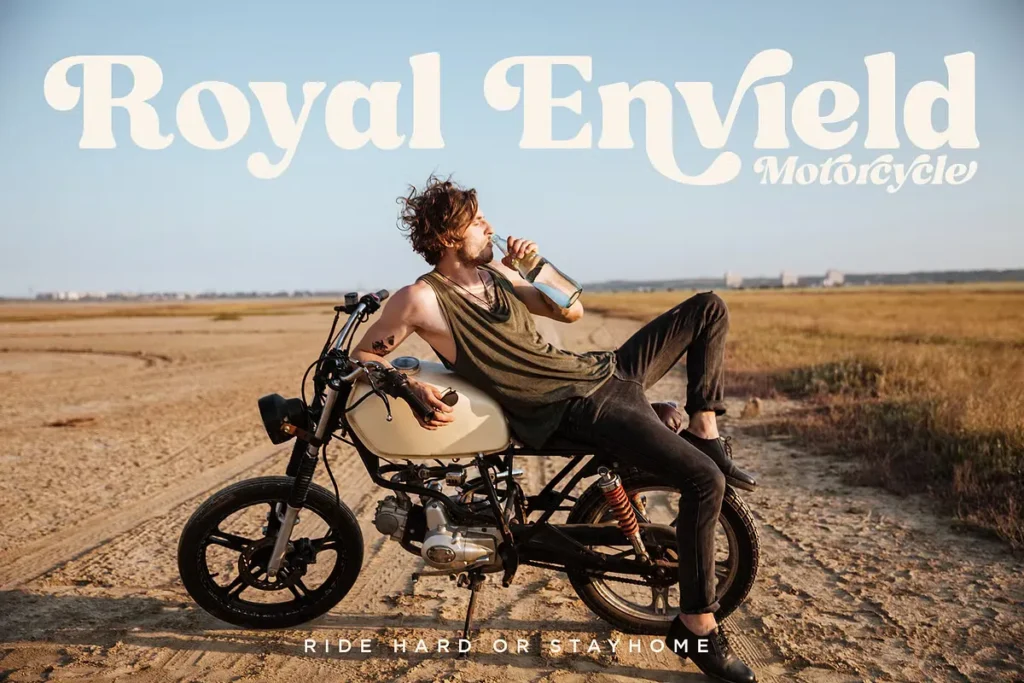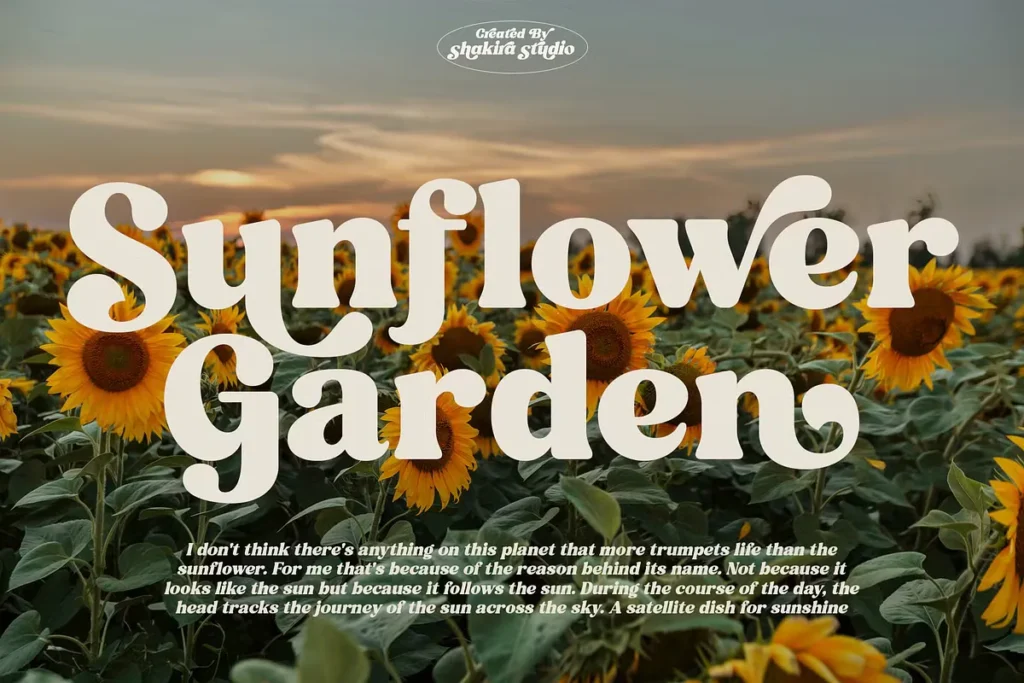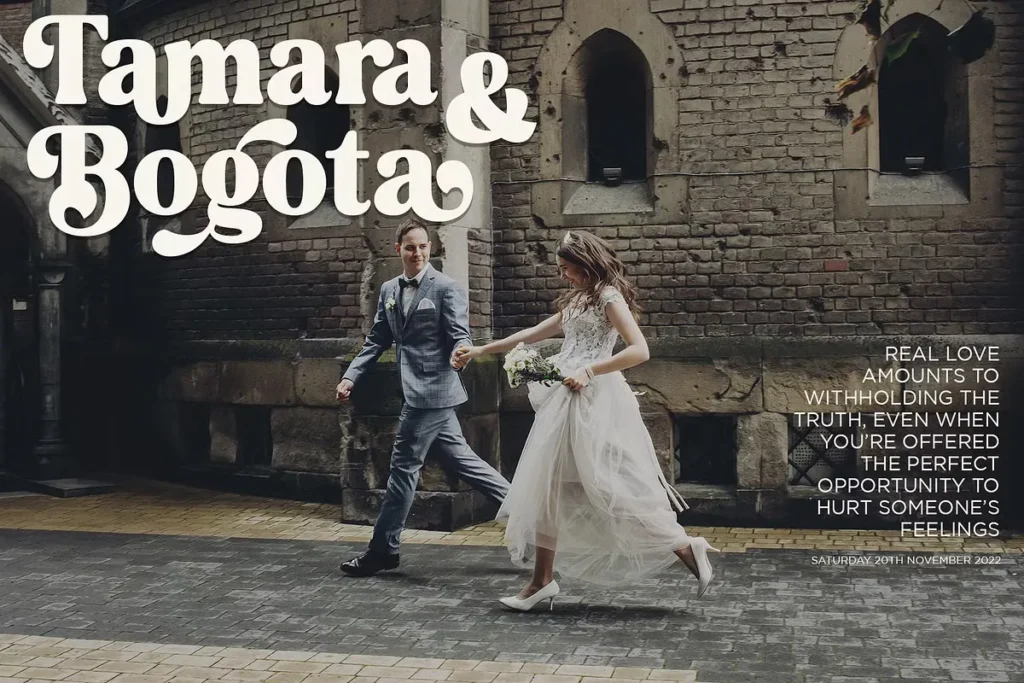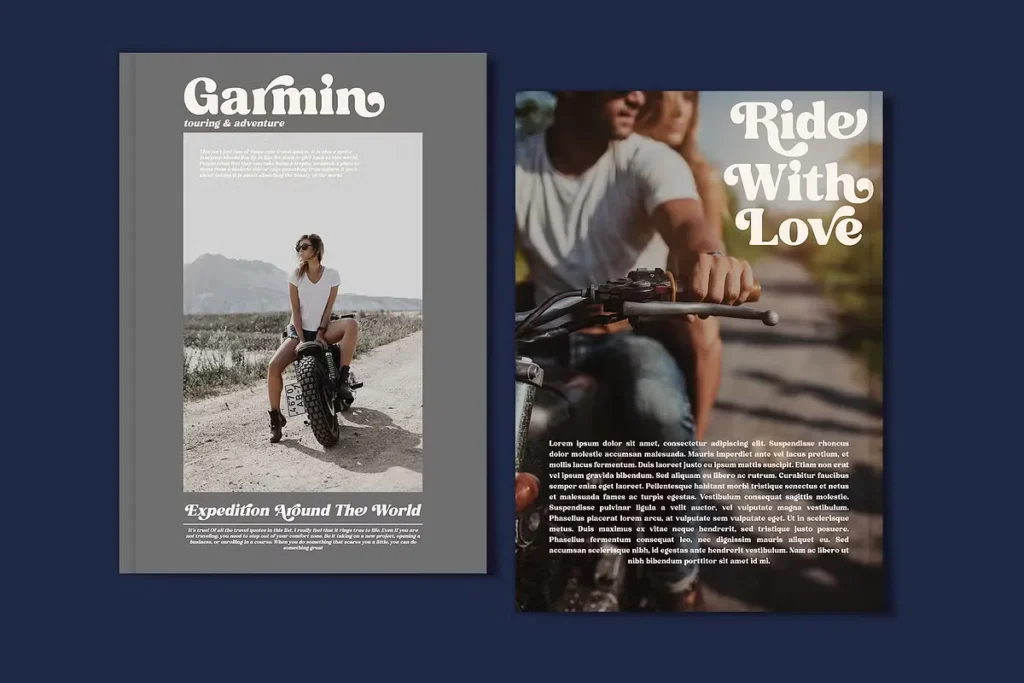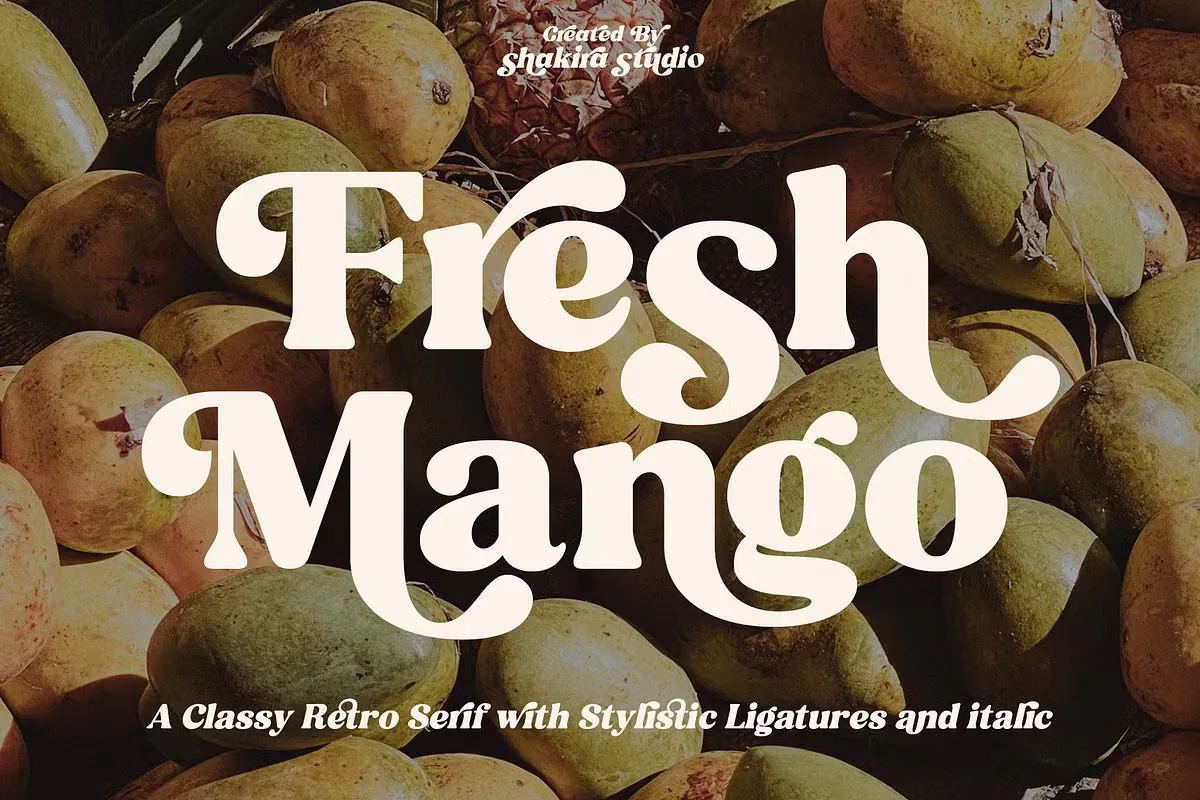
Fresh Mango is a free retro serif font designed to bring timeless charm and bold personality to your creative projects. Inspired by vintage typography with a modern twist, this stylish display font features elegant curves, contrasting strokes, and beautifully crafted letterforms that instantly capture attention. Whether you’re designing logos, branding materials, wedding invitations, social media graphics, magazine covers, posters, packaging, or eye-catching headlines, Fresh Mango adds a classy retro aesthetic to every design.
The font includes a complete set of uppercase and lowercase characters, numerals, punctuation, and multilingual support, making it suitable for both personal and commercial design work. It also comes packed with OpenType features such as ligatures and alternate characters, giving you greater creative flexibility while designing unique typography.
If you’re looking for a bold, playful, and vintage-inspired serif font, Fresh Mango is an excellent choice for creating memorable and stylish designs.
Fresh Mango Free Retro Serif Font